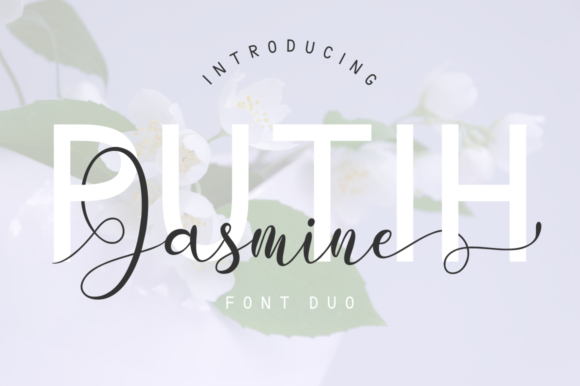
Putih Jasmine Duo Font
Journey into a world of written splendor with Putih Jasmine Duo Font, an exquisite font duo that captivates hearts with its enchanting script and mesmerizing sans-serif fonts. As versatile as it is alluring, Putih Jasmine Duo Font graces your designs with elegance and sophistication. Unleash your creativity and immerse yourself in a universe of captivating possibilities.
With its enchanting script, Putih Jasmine dances across your designs like a graceful ballerina, adding a touch of magic to every word. It twirls and loops, painting a picture of timeless beauty that invites readers into a world of imagination and wonder. Its sans-serif counterpart, with its strong and striking lines, stands tall and proud, exuding confidence and authority. Together, they form a harmonious union, complementing each other perfectly while retaining their own distinct charm.
With Putih Jasmine Duo Font, you'll discover endless opportunities to bring your creative visions to life. From elegant wedding invitations that whisper of romance to eye-catching logos that demand attention, this font duo is your gateway to design excellence. Craft social media posts that sparkle with individuality or create stunning website headers that leave a lasting impression. The possibilities are limitless, bound only by the depths of your imagination.
Don't miss out on the chance to elevate your designs with Putih Jasmine Duo Font. Step into a world of typographic elegance and experience the transformative power of beautiful fonts. Let Putih Jasmine Duo Font be your beacon, guiding you toward design brilliance. Embark on this creative journey today and unlock the full potential of your imagination!